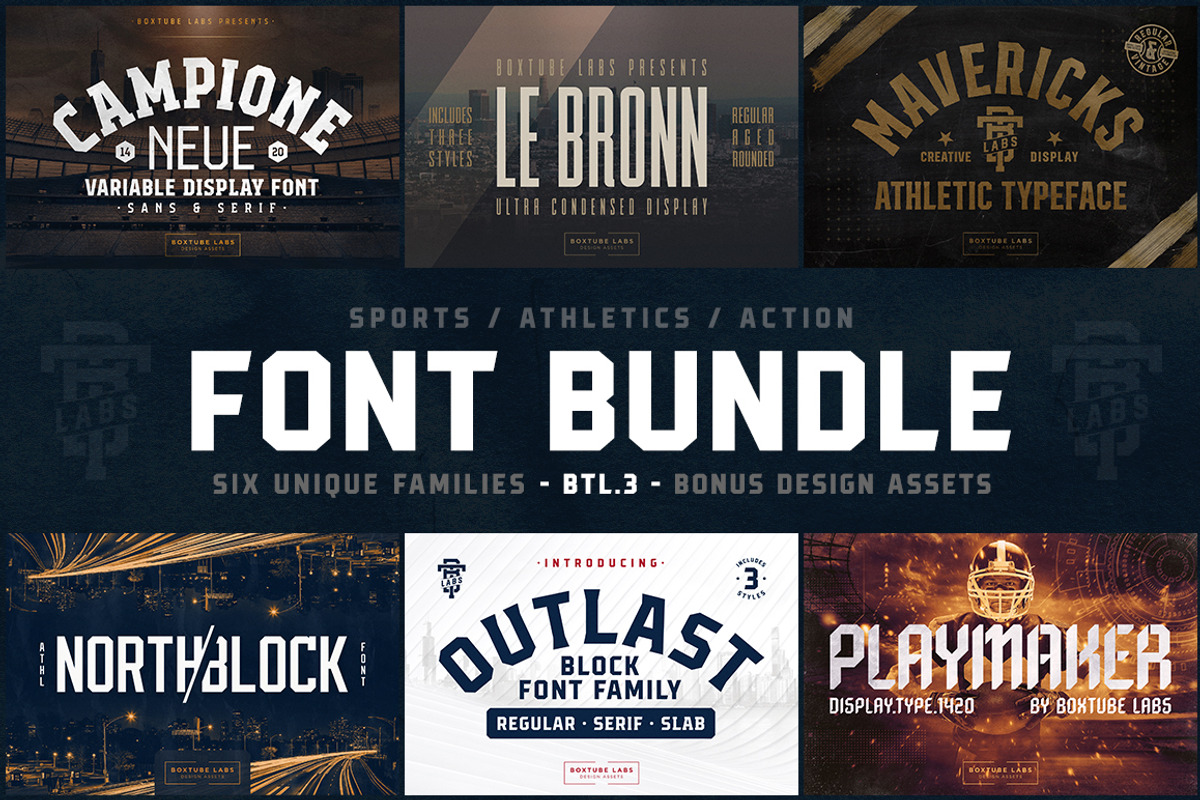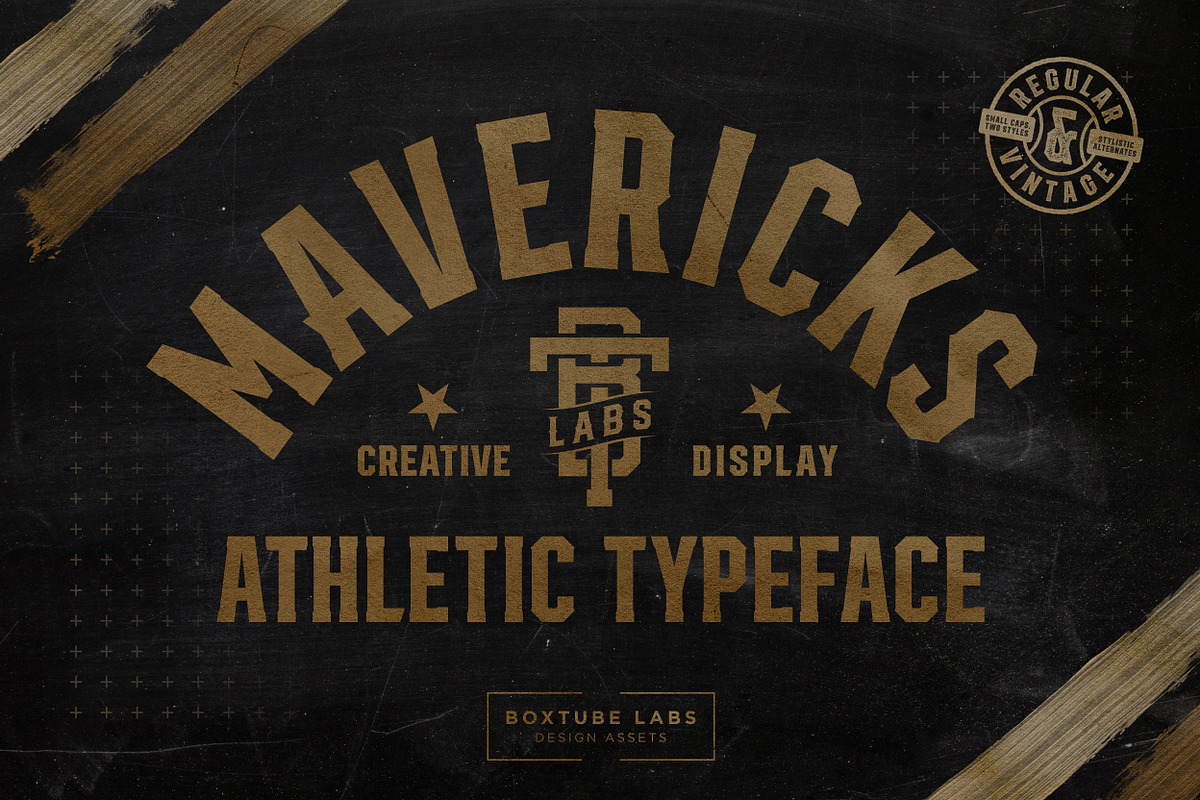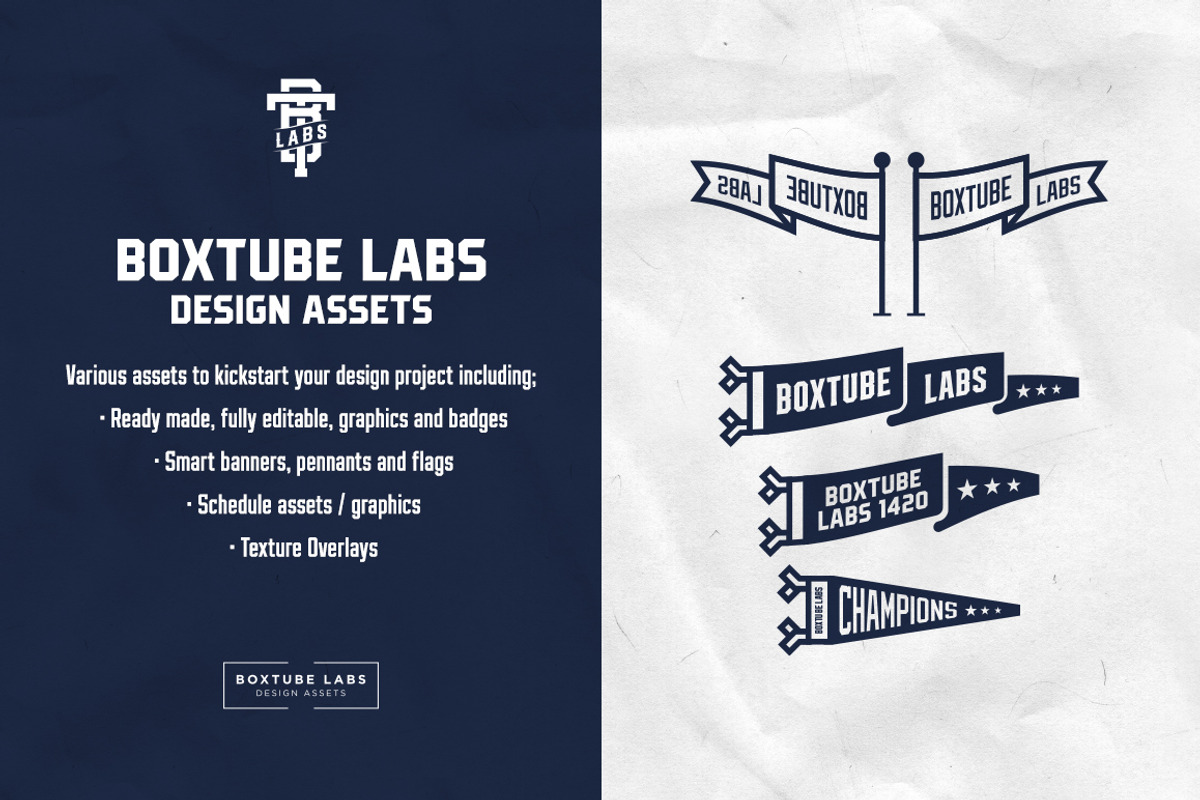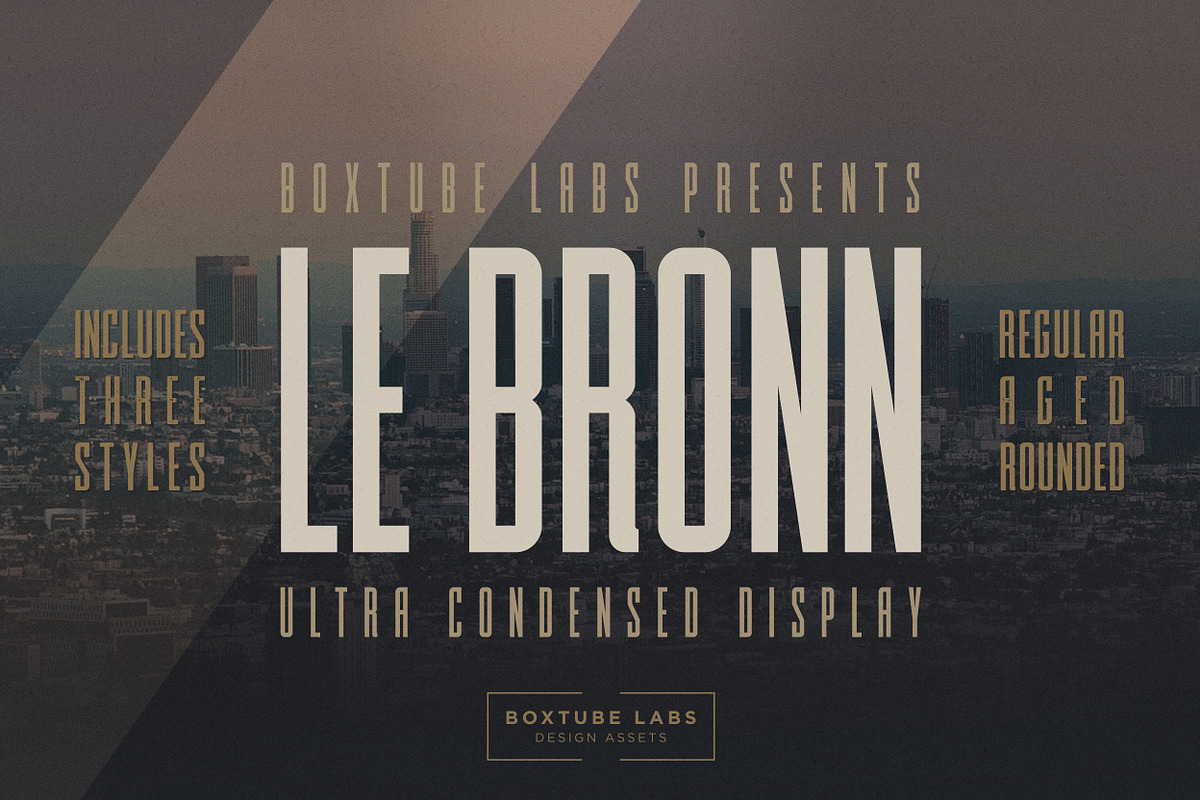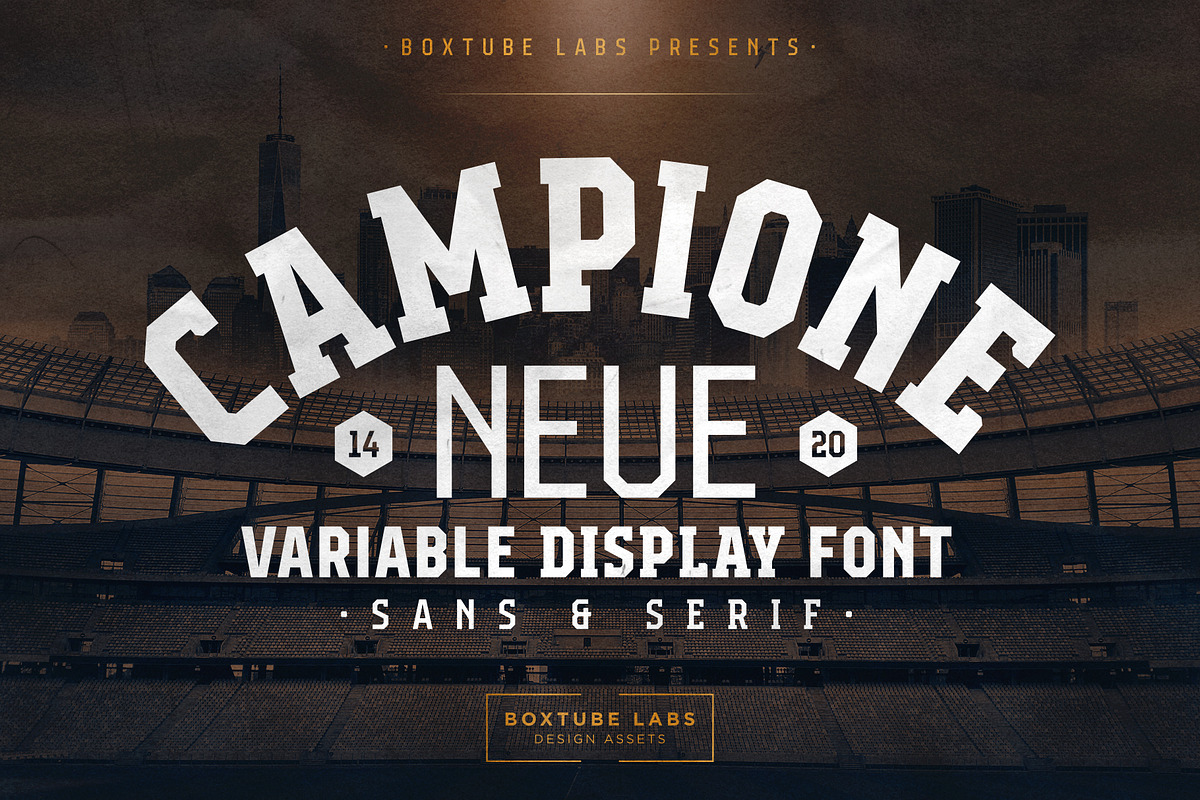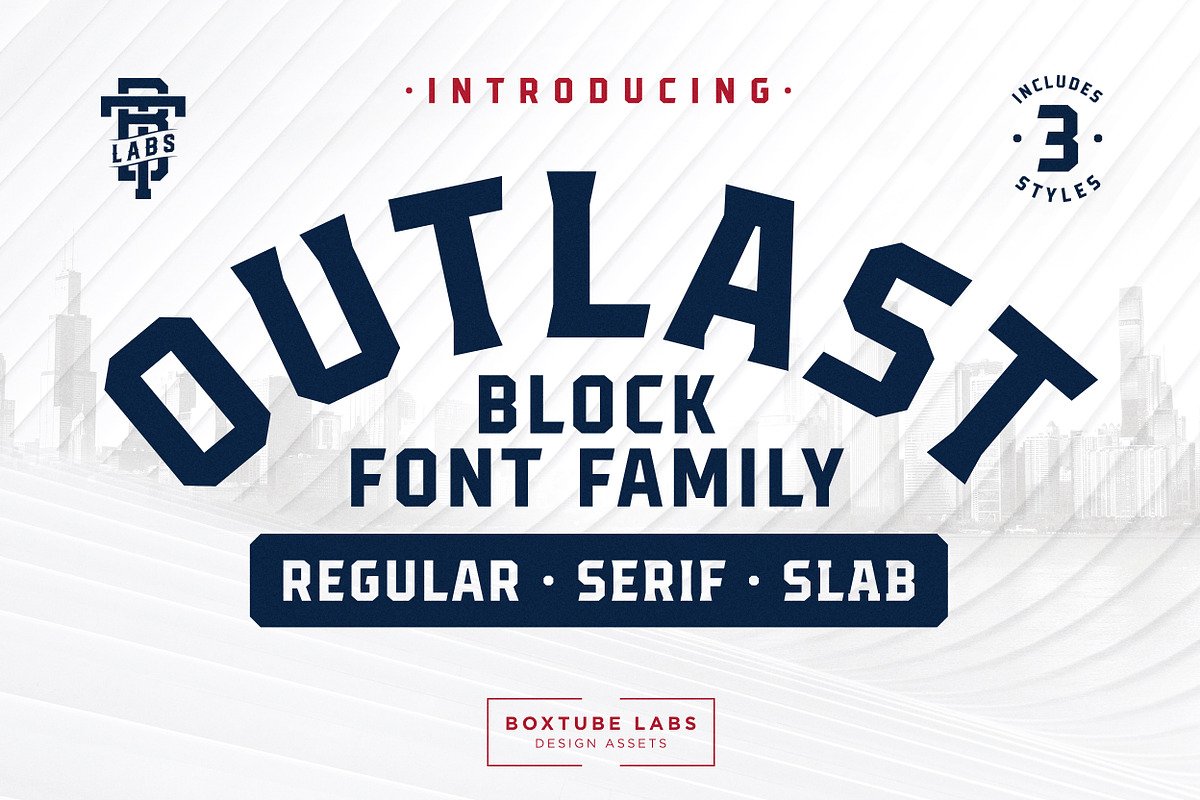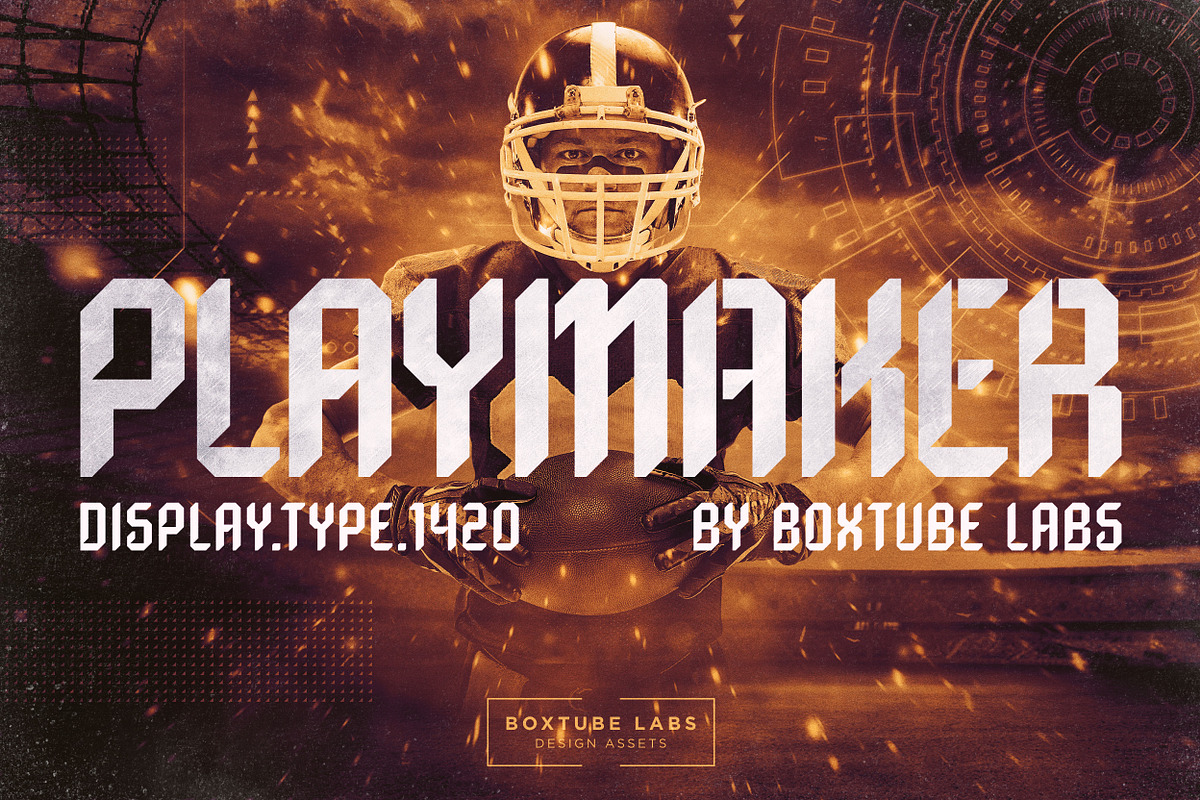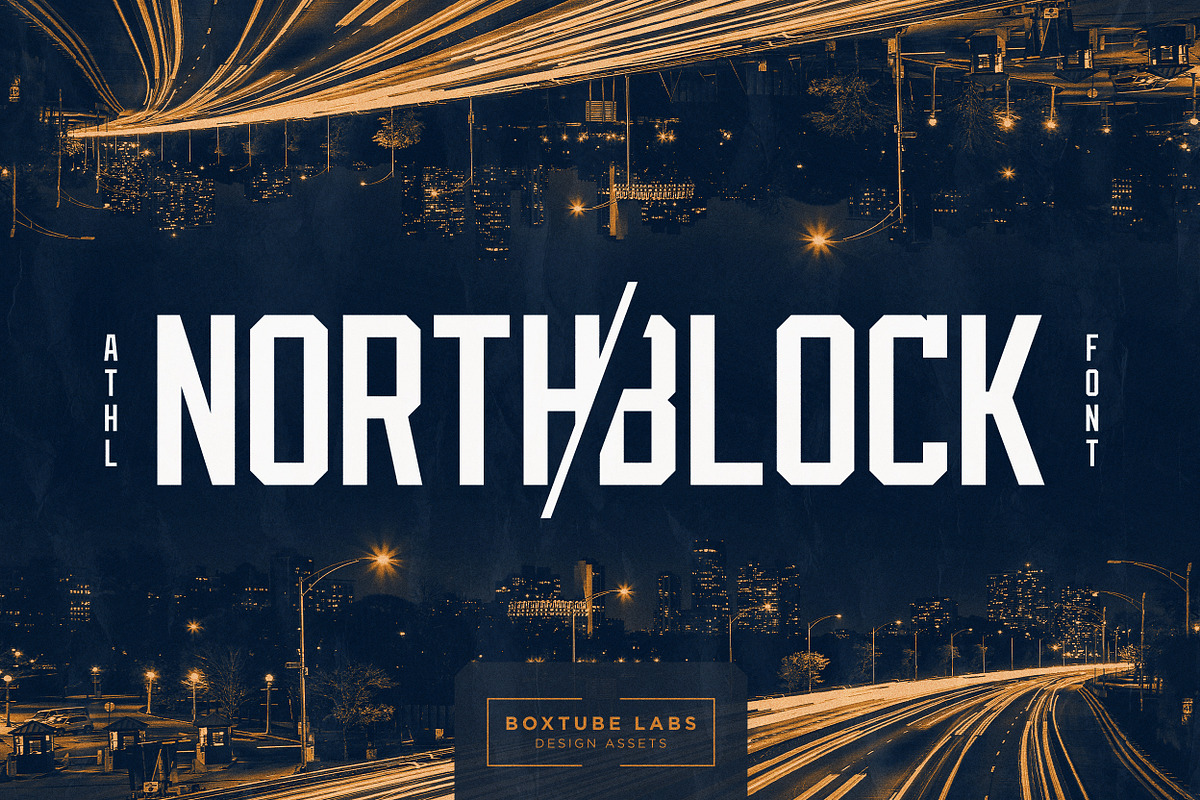
Sports Display Font Bundle BTL.3
BoxTube Labs presents the Sports Font Bundle BTL.3 - a collection of six sporty and athletic font families. This bundle features strong, powerful and versatile typefaces designed for sports logos, club branding, apparel applications, labels and more. To kickstart your design project we've also included a pdf with ready made, fully editable graphics, banners, pennants, flags and more. Top it off with a set of high resolution jpg texture overlays and you're all set.
Why Sports Display Font Bundle BTL.3 is worth a look
Sports Display Font Bundle BTL.3 by BoxTube Labs fits naturally into Branding, posters, packaging, typography.